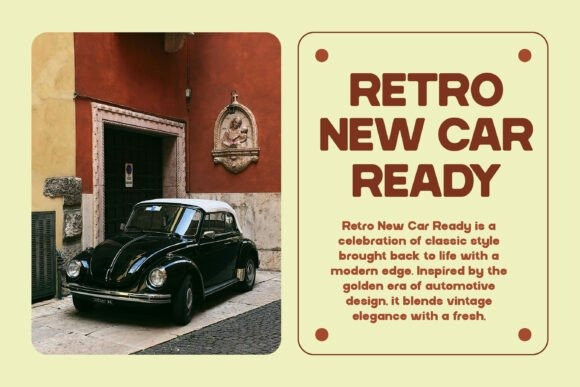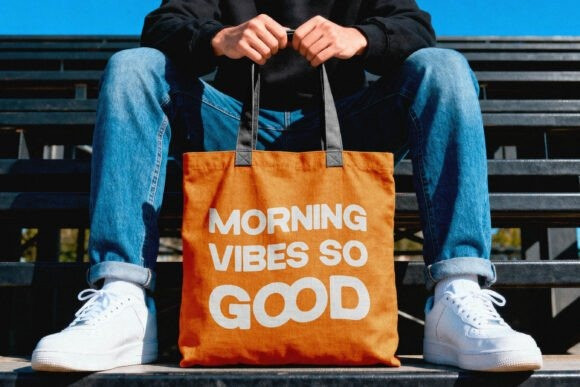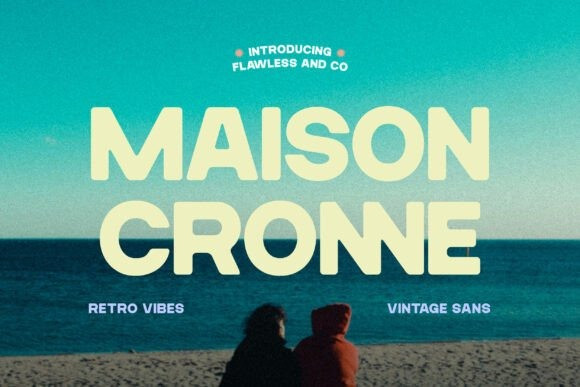
Maison Cronne Font
Maison Cronne Font is a retro sans serif typeface designed to capture the warmth and charm of classic vintage aesthetics. Featuring bold shapes, smooth curves, and nostalgic-inspired details, Maison Cronne delivers strong retro vibes while maintaining a clean modern appearance. Its playful yet refined character makes it perfect for designs that want to feel timeless, expressive, and full of personality. Whether for branding, posters, packaging, or social media, Maison Cronne brings a bold retro atmosphere to every composition.